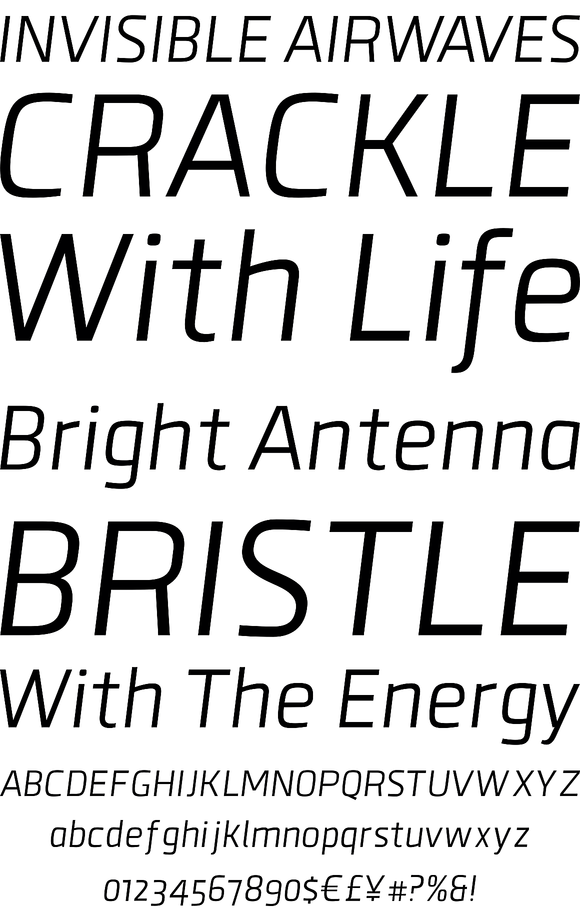
Clio, Clio XS and Clio Condensed is a big family of 72 fonts. They were designed by Gabriel de Souza in 2012. They are simple and stylish and they have the ideal appearance to your work
Clio, Clio XS and Clio Condensed is a big family of 72 fonts. They were designed by Gabriel de Souza in 2012. They are simple and stylish and they have the ideal appearance to your work.
Furthermore, features such as italics, obliques, great language support and flexibility. They can be applied in many differents form but their primary use is indicated to display use and luxurious trade mark creation and also available for Clio Icons.